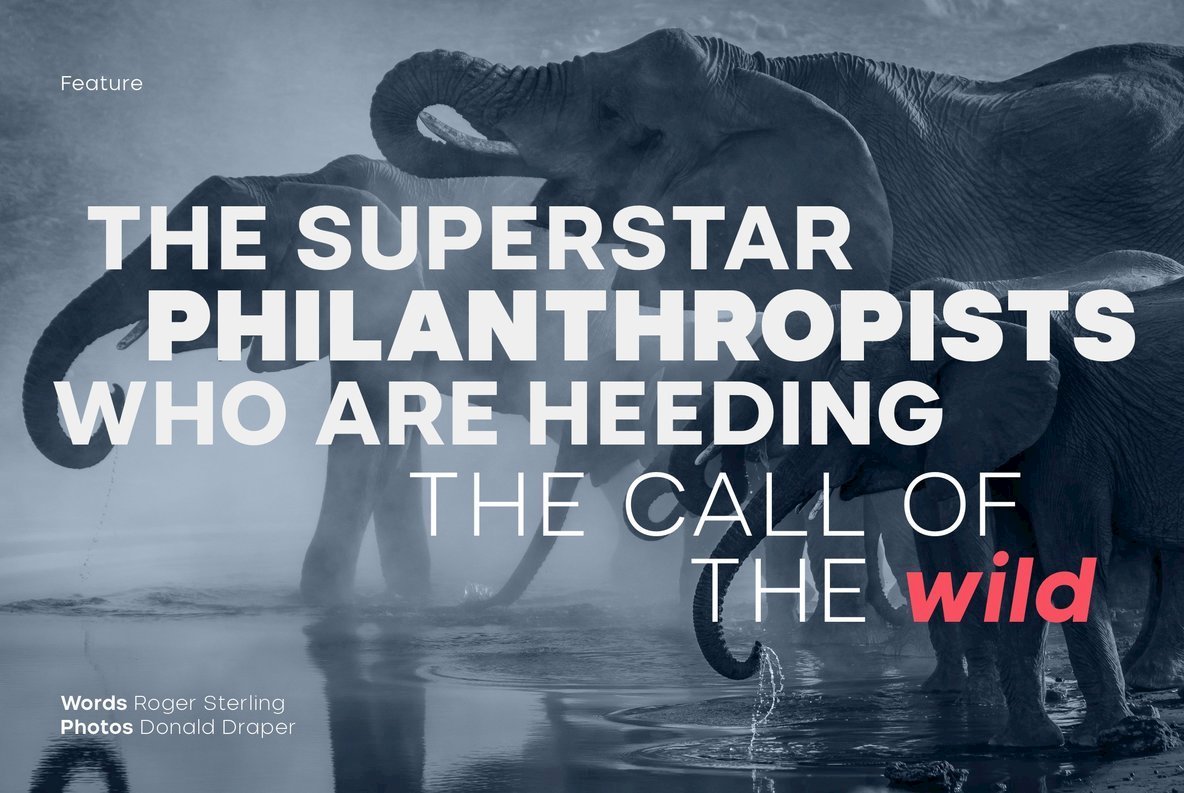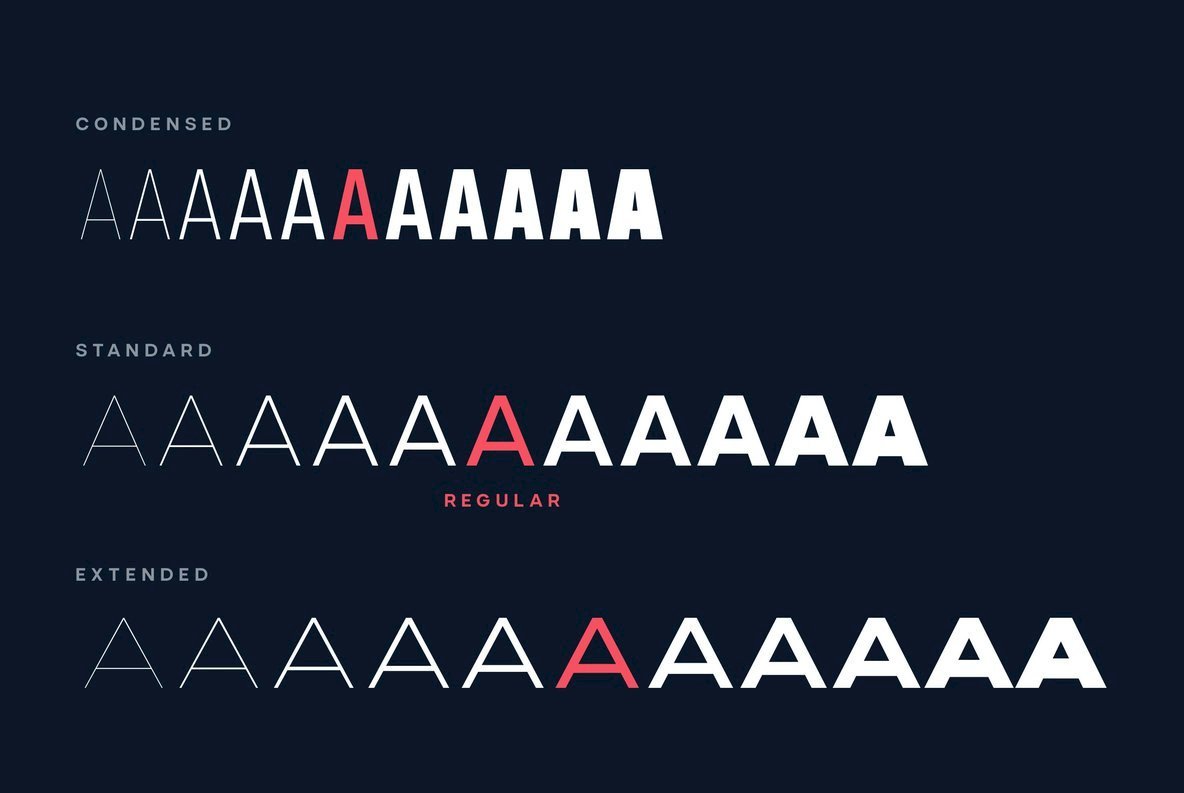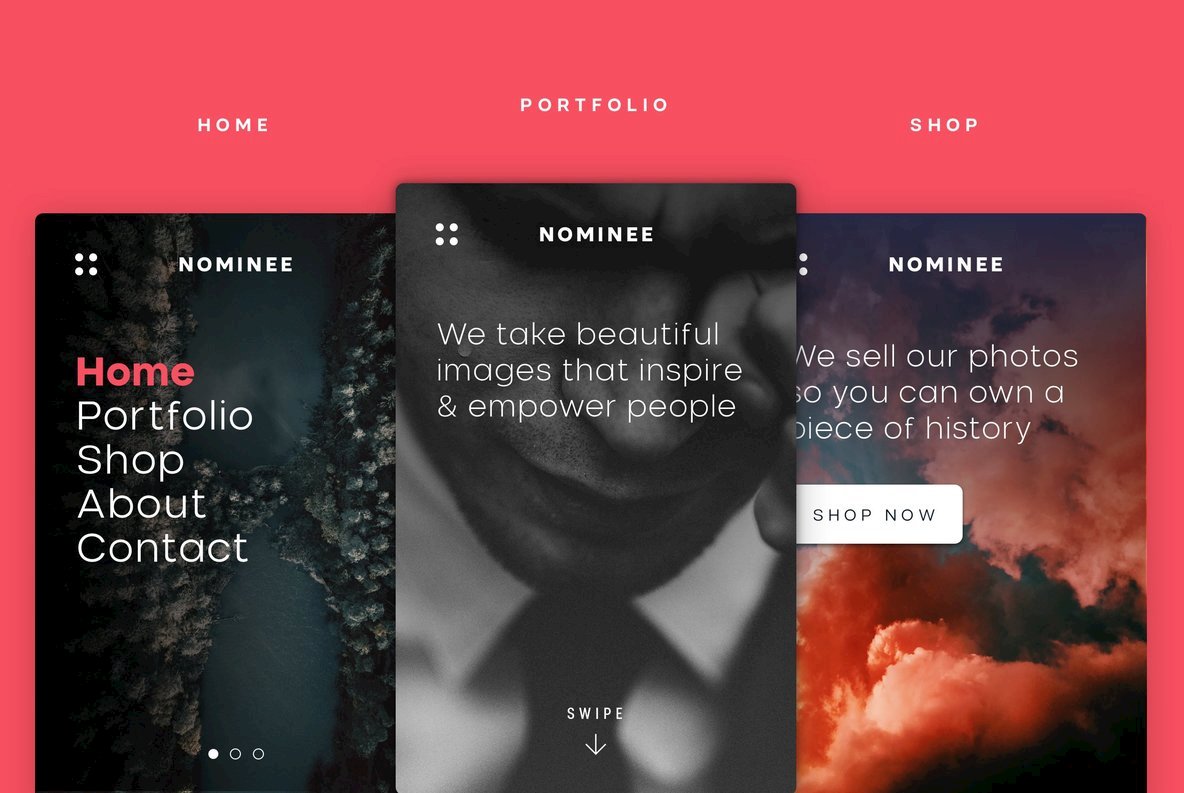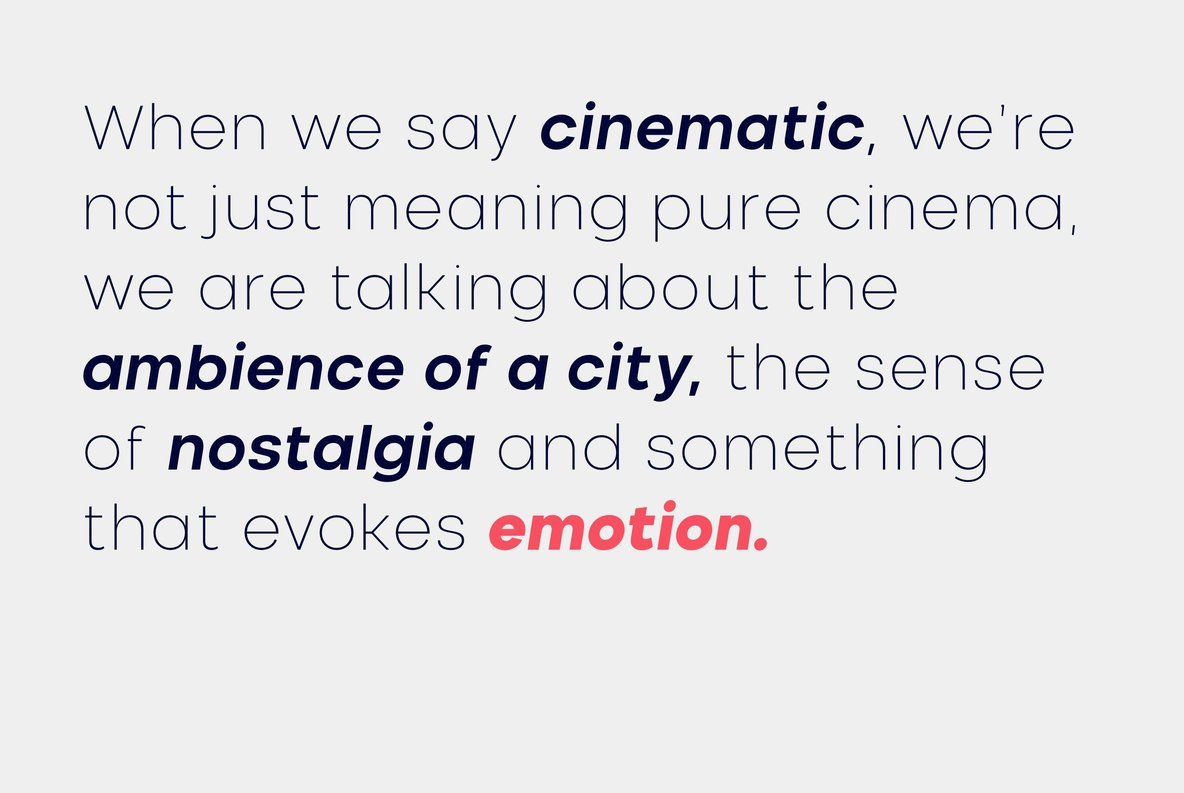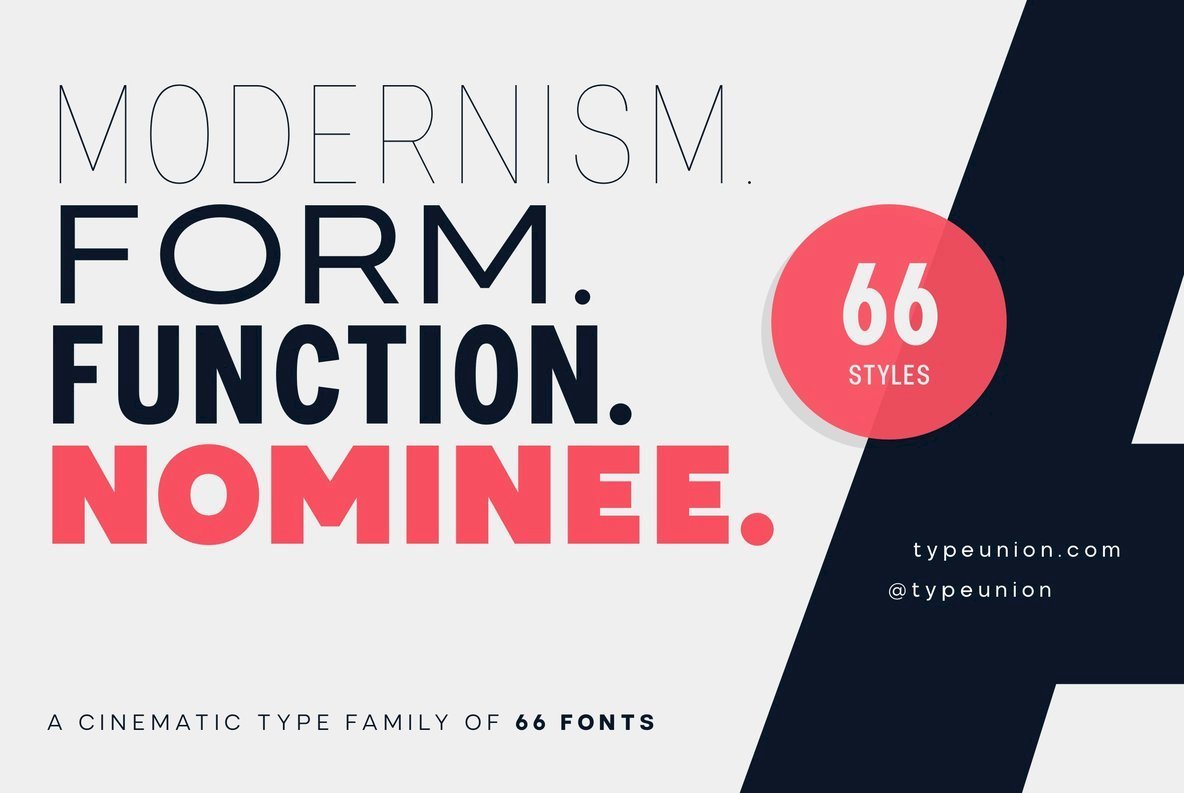
Nominee Font Family
Nominee is a cinematic font family made up of 11 weights, 3 widths, and matching italics, that equates to a substantial 66 font styles that feel individually crafted but also part of a larger structured system.The versatile font styles range from an elegant Hairline to a dominant Heavy, Condensed to Extended, which creates such an extensive range of uses and applications, from web and apps to editorial and branding, and everything in between. The increased x-height gives the font more readability at smaller sizes and the contemporary shapes mean the font likes to be shown off at large sizes.The font features details such as case sensitive characters, numerators and denominators, and support for Central and Eastern European along with Western European languages and Basic Cyrillic